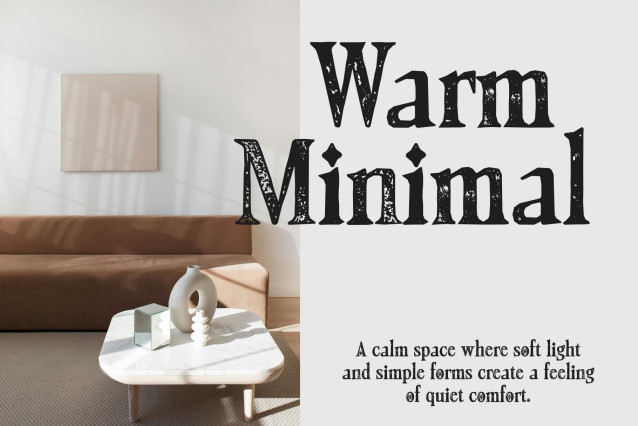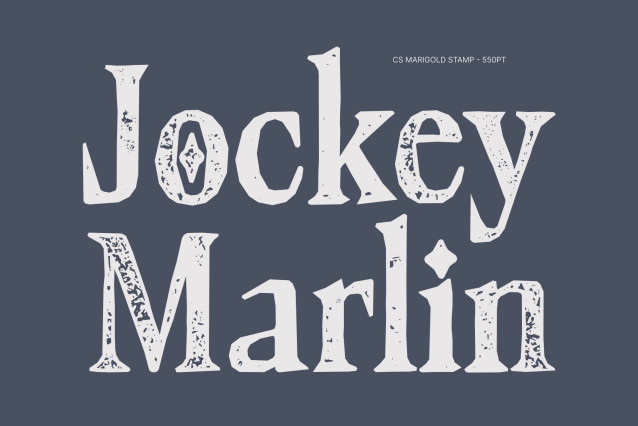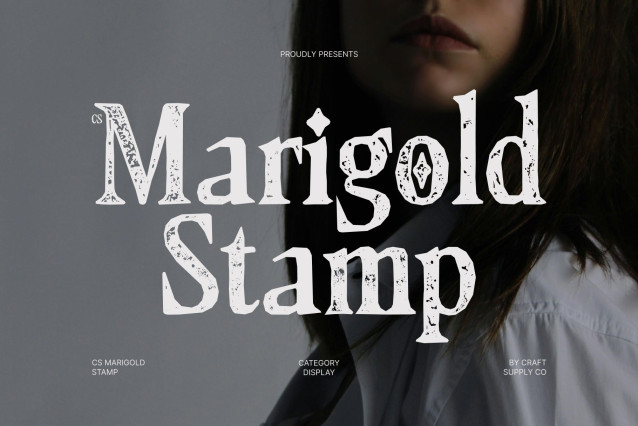
CS Marigold Stamp Font
CS Marigold Stamp – Display Serif Font: Where Uncial Heritage Meets Modern Elegance
Classic Uncial Influence with Contemporary Form
This is a modern display serif font that harmoniously blends classic uncial shapes with contemporary minimalism. Its letterforms echo historical calligraphic traditions while maintaining a clean and refined modern structure. This balance creates a typeface that feels both timeless and fresh.
Expressive Drawn Touch with Artistic Warmth
This font carries an expressive, handcrafted quality that enhances its elegance. The gentle imperfections and organic strokes bring warmth and personality, making each character feel unique and alive. This artistic nuance transforms simple text into a visually rich composition filled with charm and individuality.